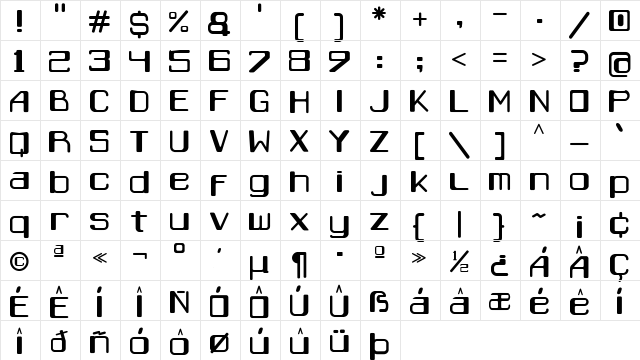
Caracas Regular Font Preview
Caracas Regular
Design Context for Caracas Typeface
Caracas offers clean, dependable letterforms without strong stylistic allegiance, making it a practical choice for designers who need flexibility.
Pro Tip: Use Caracas in both headline and body roles to test its range before committing to a single application.